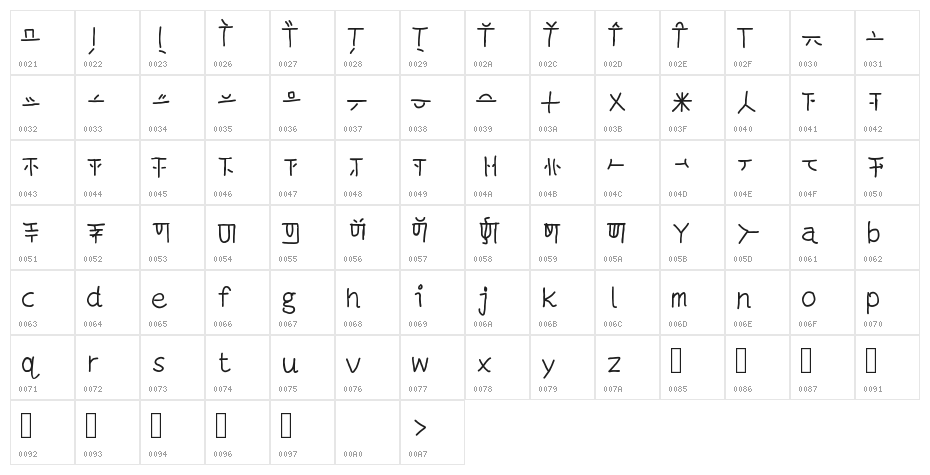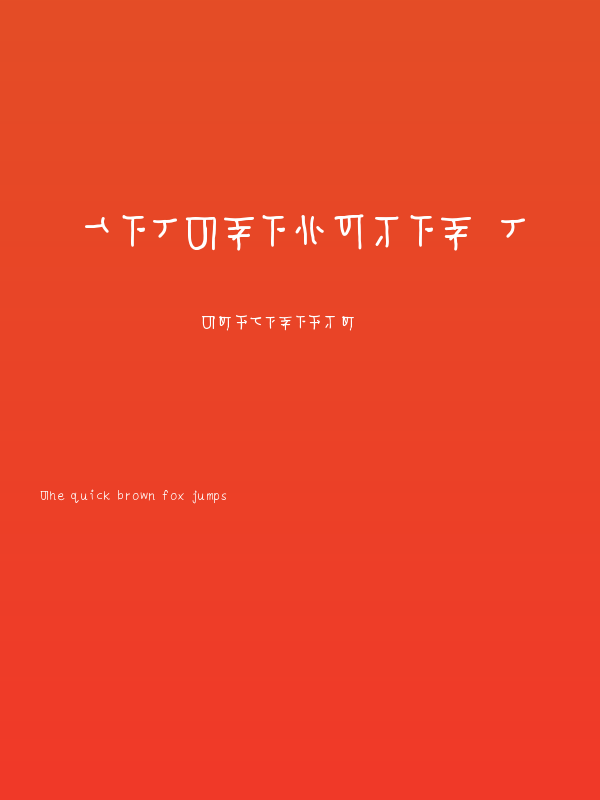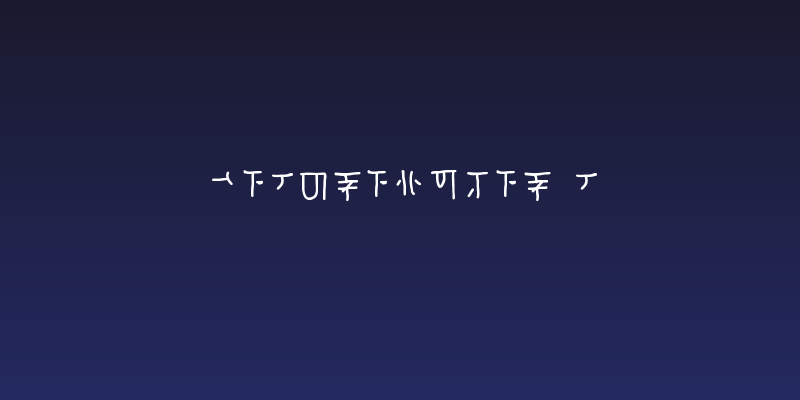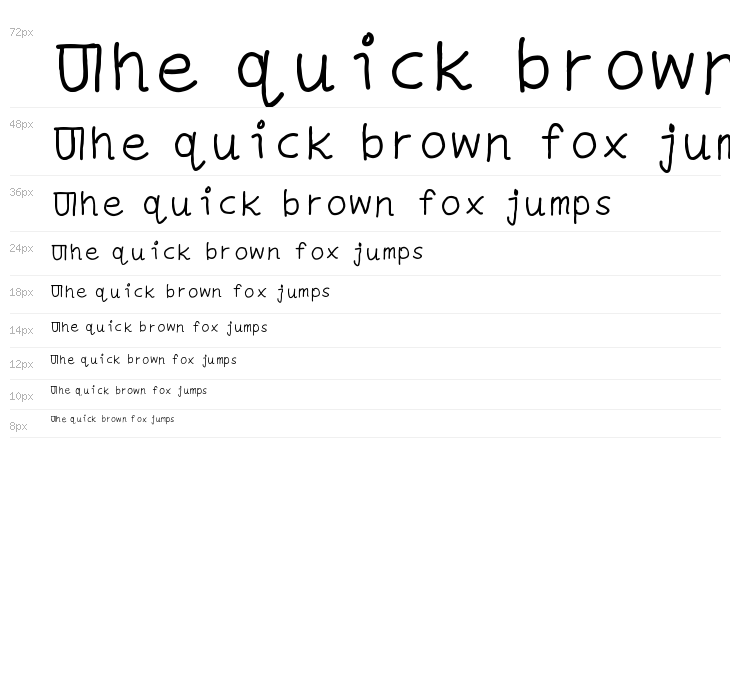
mantrakshar N Font
mantrakshar N Description
This font features a unique and artistic style, reminiscent of ancient scripts with a modern twist. The characters are crafted with a hand-drawn appearance, giving them an organic and fluid feel. The uppercase letters have a distinct, almost hieroglyphic quality, while the lowercase letters maintain a more traditional form with slight variations in stroke width. The numerals and special characters follow the same artistic theme, ensuring consistency across the font. The overall design is both playful and sophisticated, making it suitable for creative projects that require a touch of originality.
| Use Case | Logos, Posters, Creative projects |
| Proposed Projects | Ideal for creative projects such as posters, album covers, or branding that seeks a unique and artistic touch. |